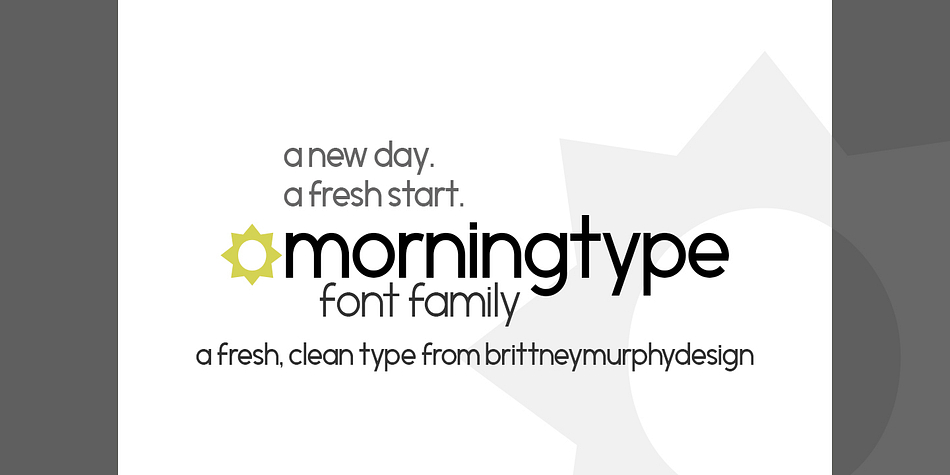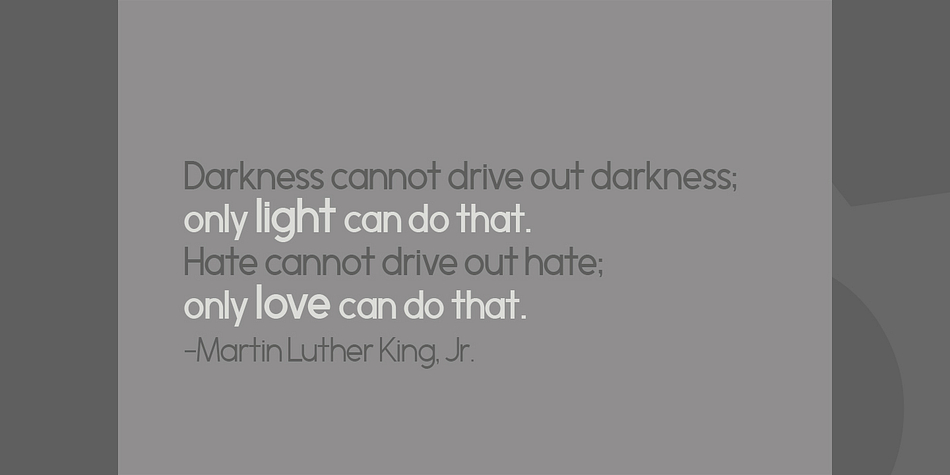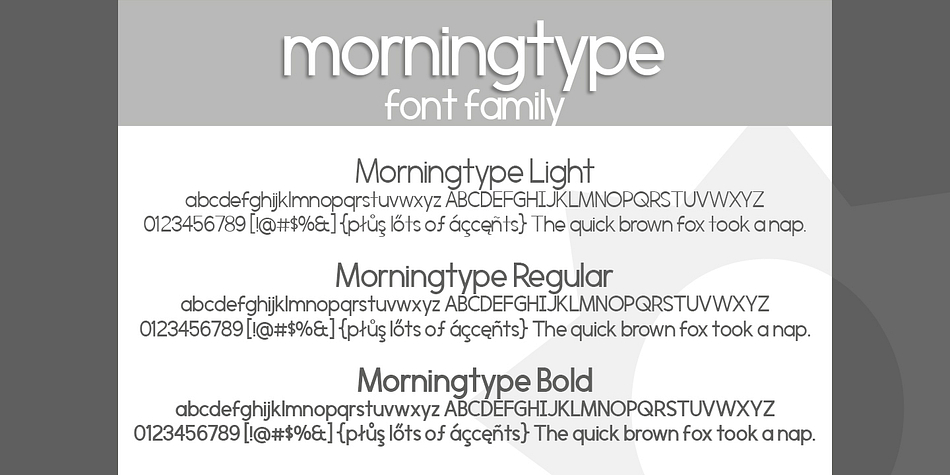
Morningtype is a sans serif font family. This typeface has three styles and was published by Brittney Murphy Design.
Morningtype is a fresh, clean sans-serif in three weights- light, regular, and bold.